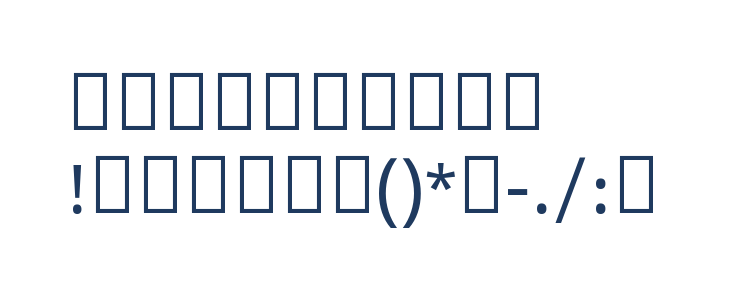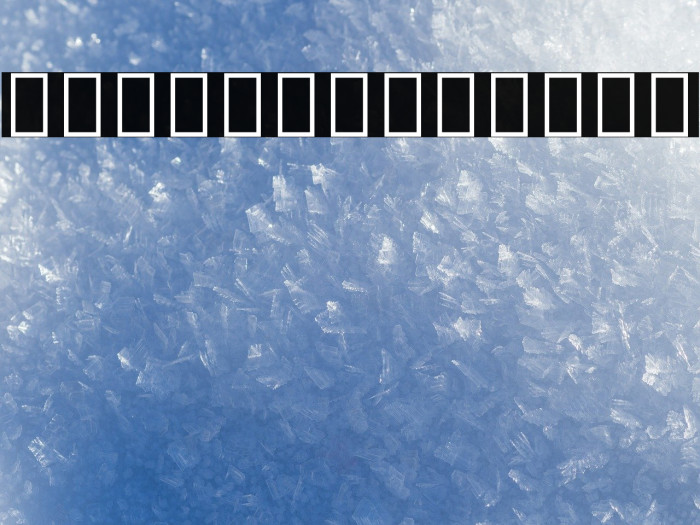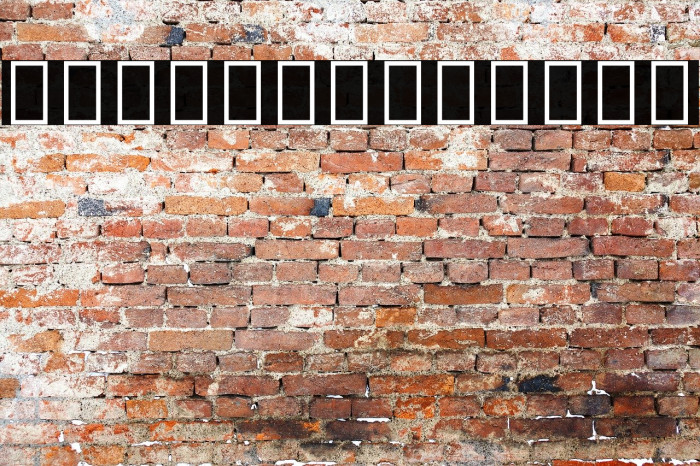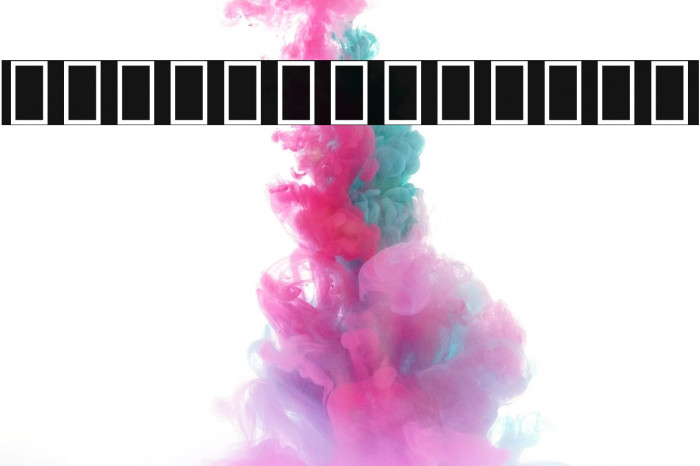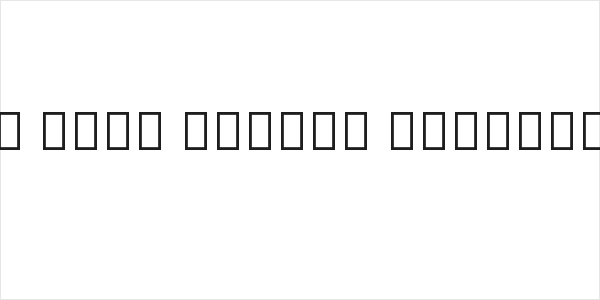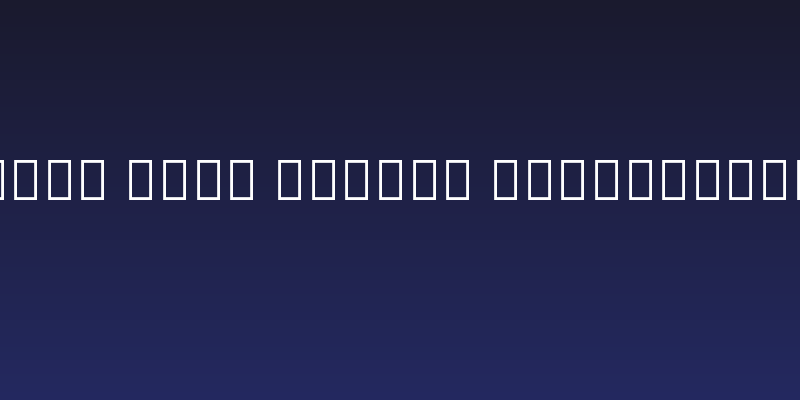
Noto Sans Syriac Estrangela Font
Noto Sans Syriac Estrangela Description
This font features simple, geometric letterforms with even stroke widths and minimal ornamentation. The characters are clear and legible, with a modern and neutral appearance. Punctuation marks are straightforward and consistent with the overall style.